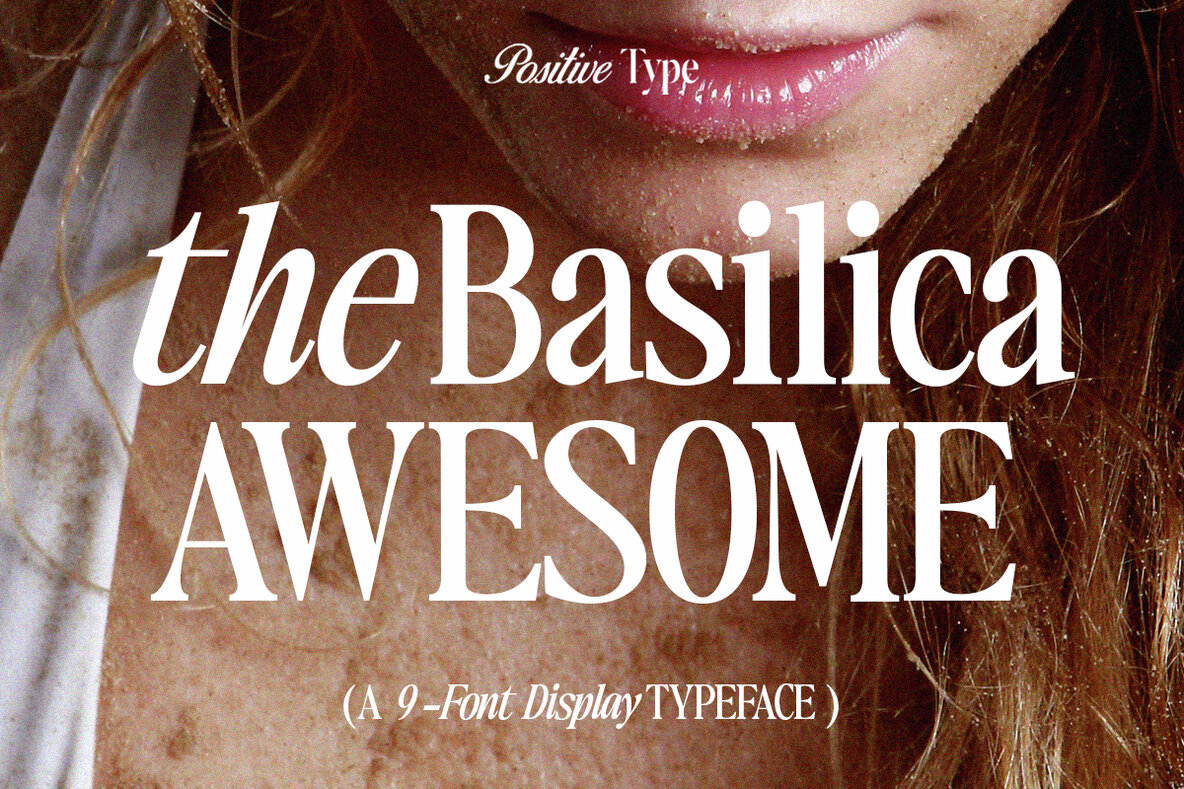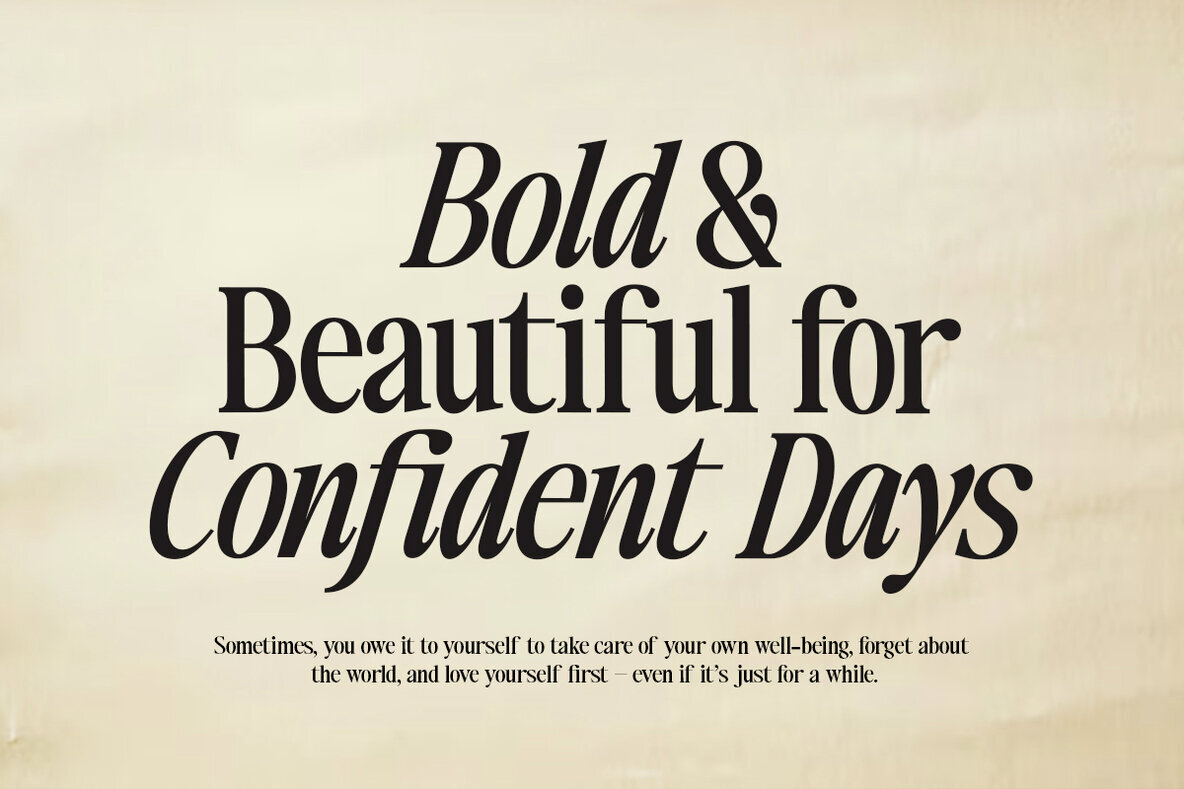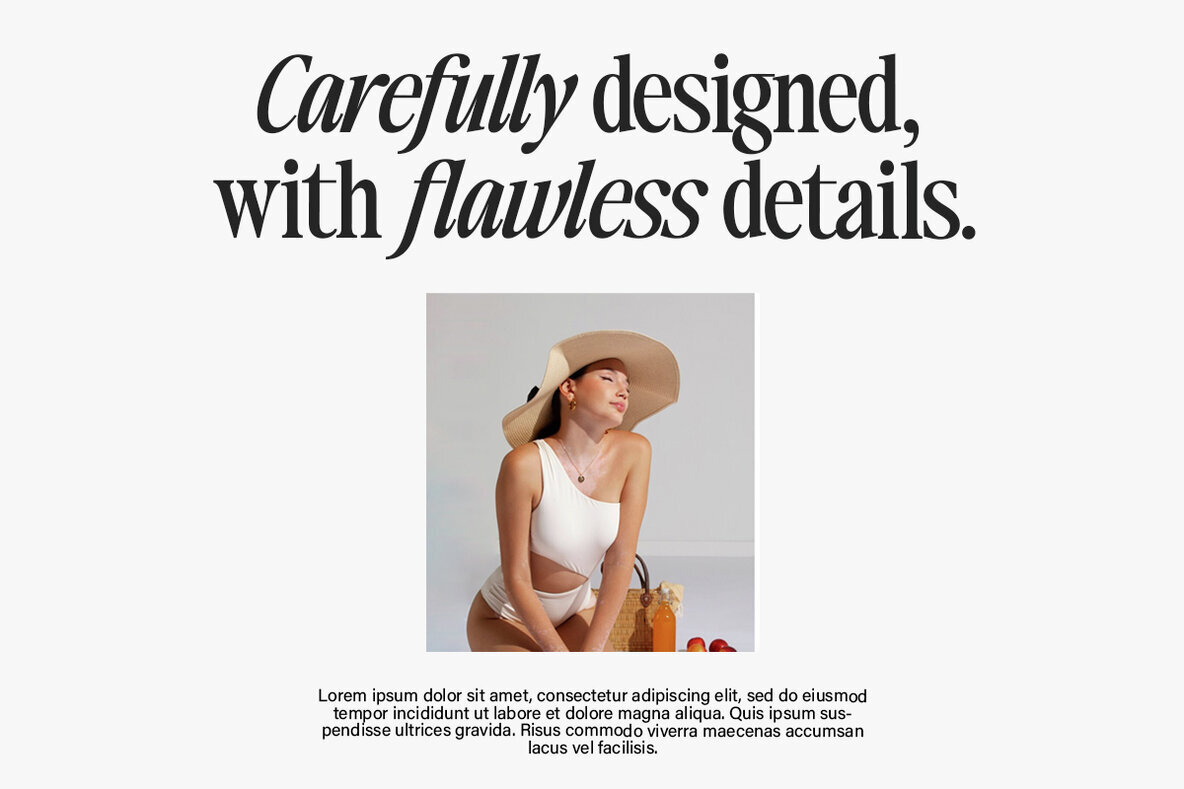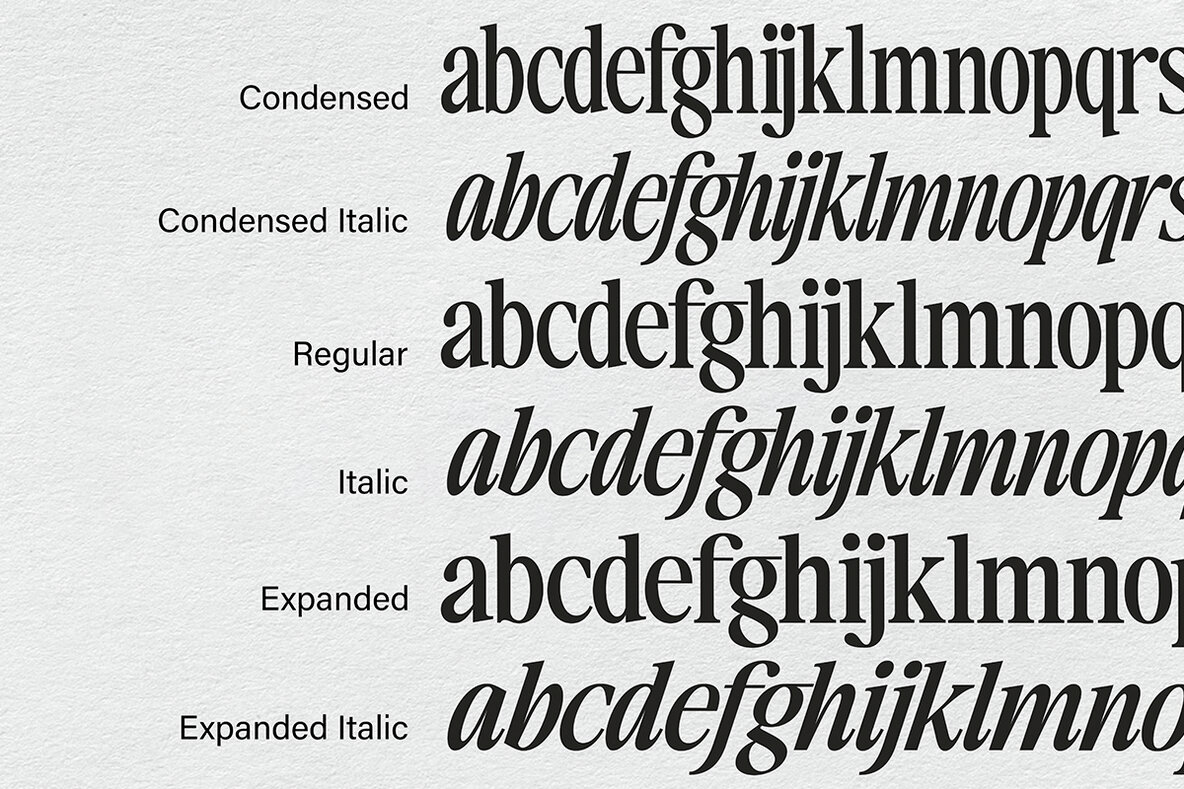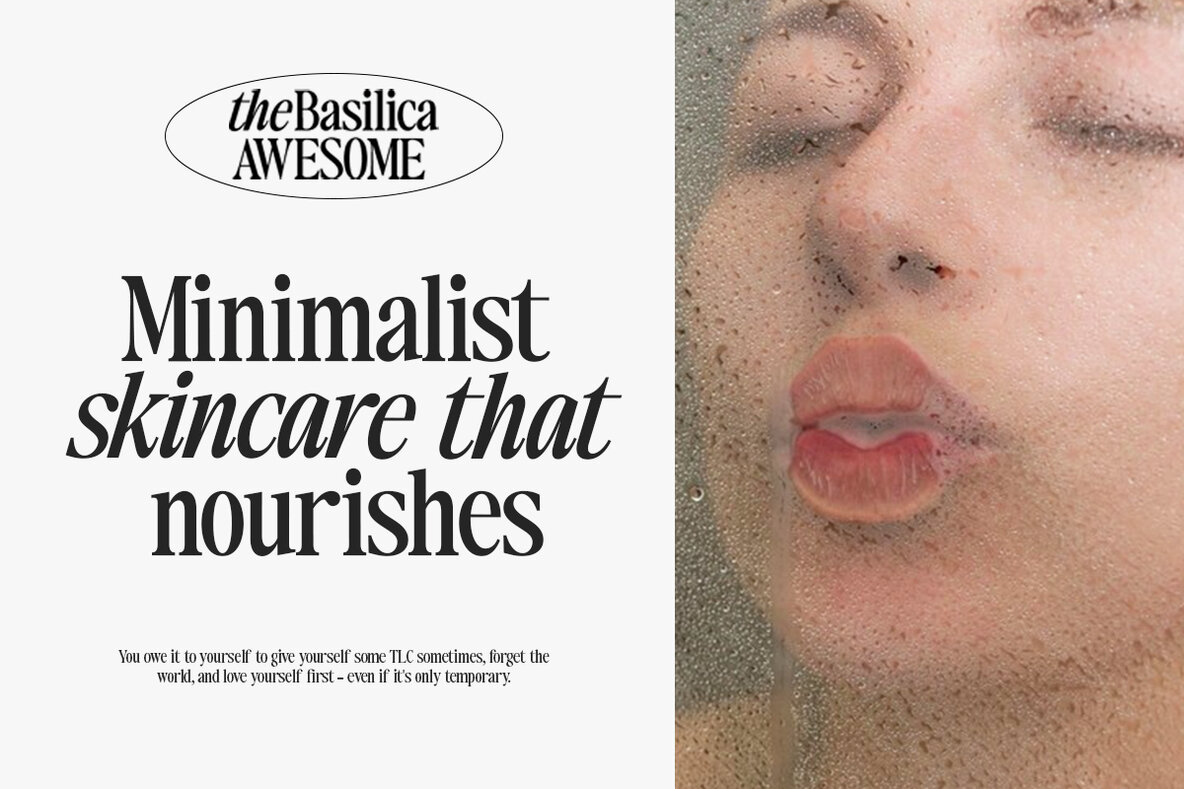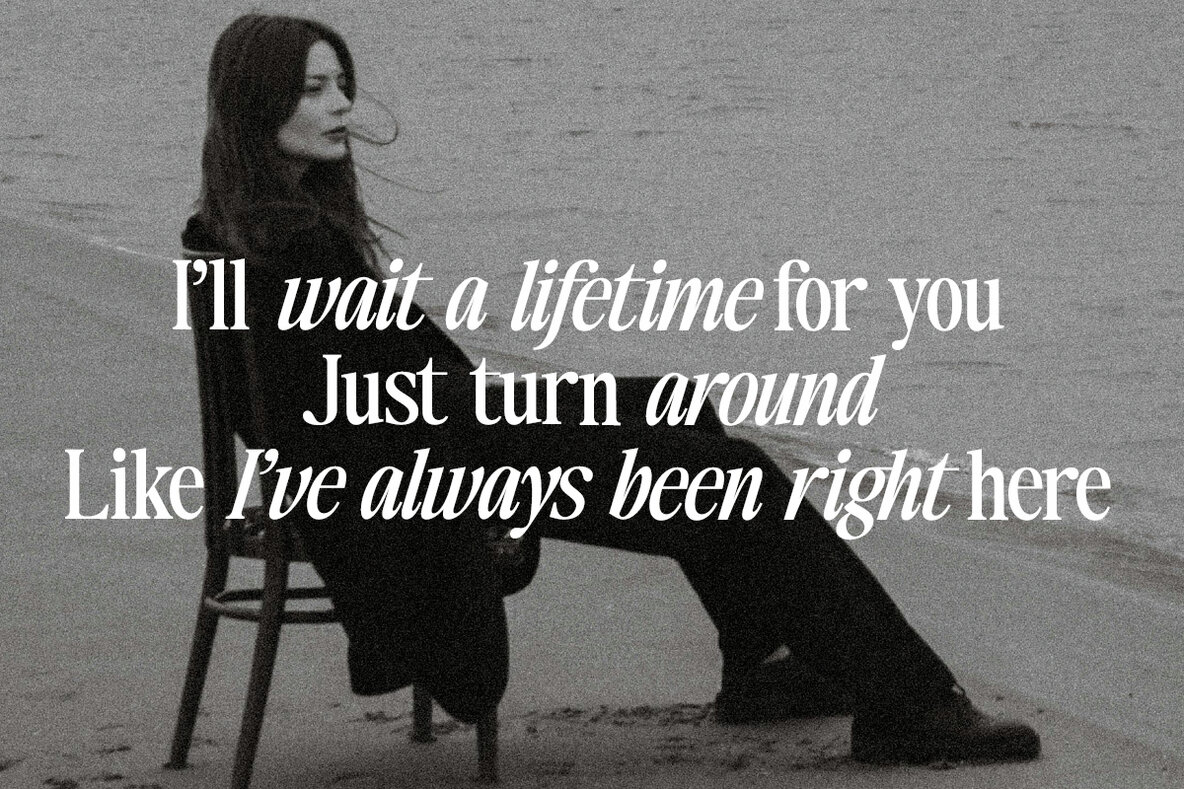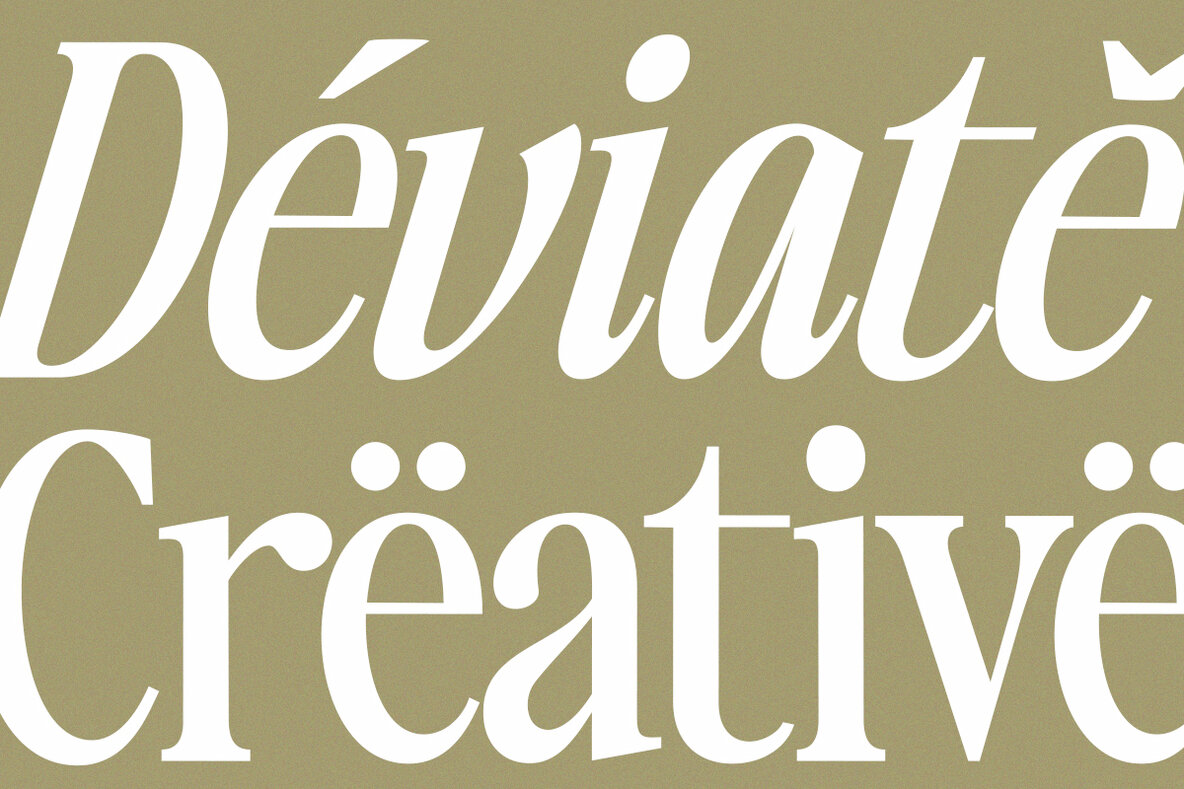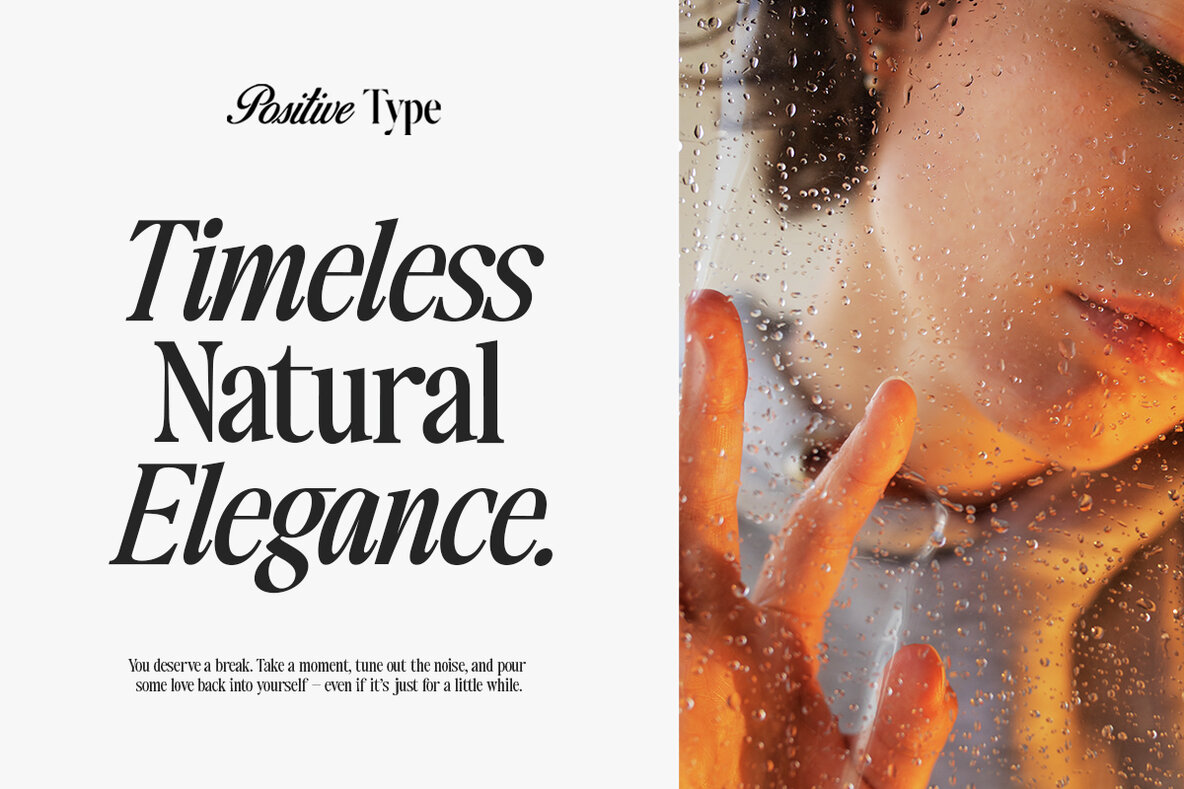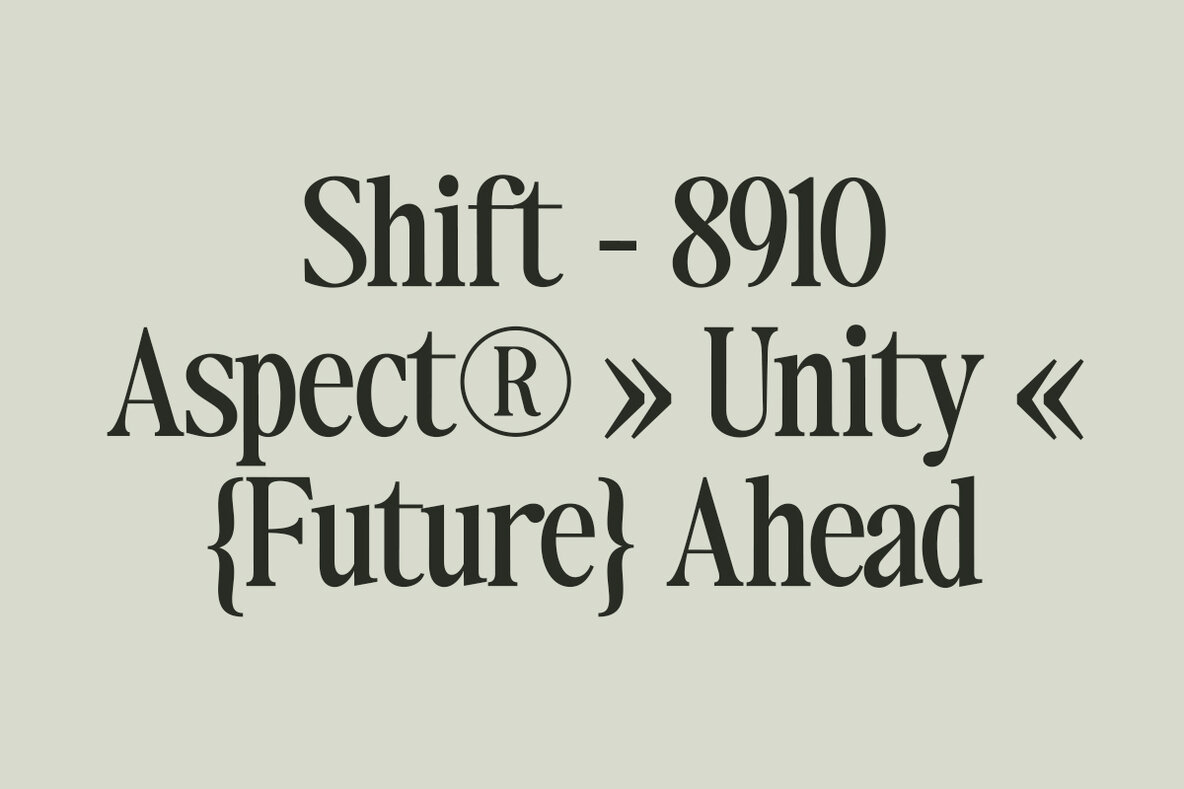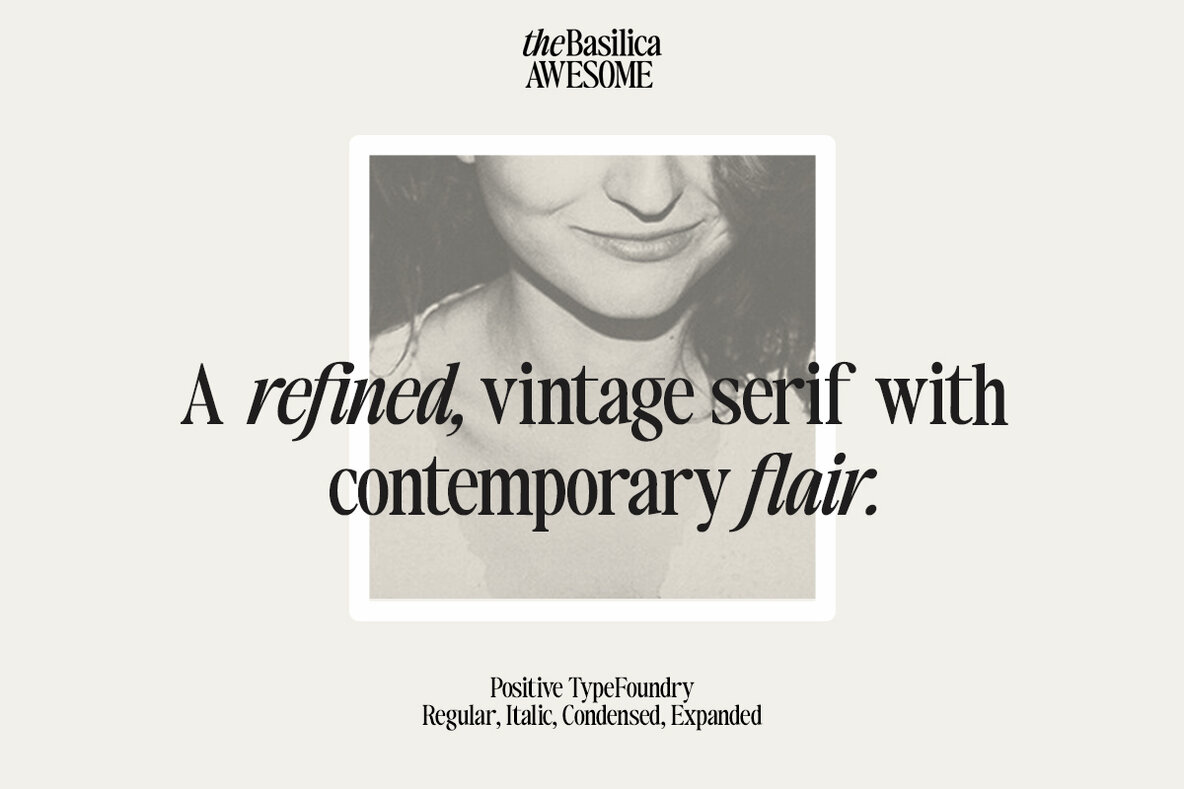
The Basilica Awesome Font
The Basilica Awesome is a modern vintage serif font designed with a classy style. It offers a range of OpenType features, allowing users to select from various uppercase and lowercase variations for a luxurious and elegant appearance.Basilica Awesome: Modern Vintage Serif Font